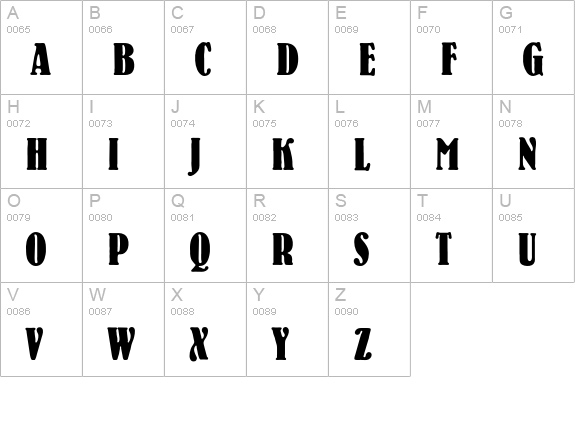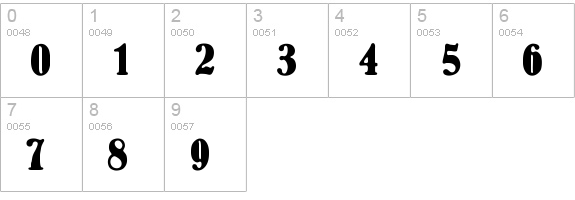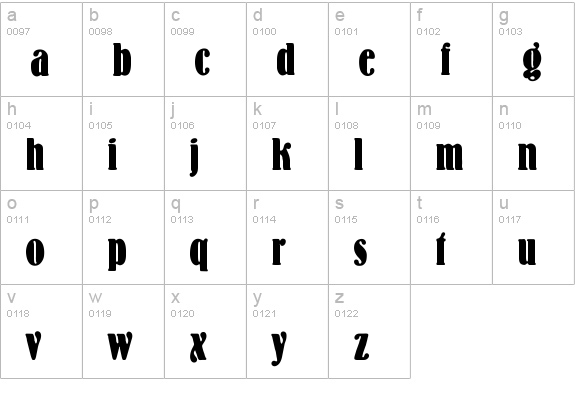
Laurin Font Details
Laurin font is a versatile and stylish typeface that is perfect for adding a touch of elegance to any design project. With its unique and eye-catching letterforms, Laurin font is sure to make a statement and leave a lasting impression. This font features a balanced combination of crisp lines and smooth curves, giving it a modern yet timeless appeal. It is suitable for various design purposes, including branding, logo design, editorial layouts, packaging, and more. One of the most attractive features of Laurin font is that it is available for free. Yes, you read that right! You can freely download this beautiful typeface at FontsMarket.com. This means that you can enhance your designs without any additional cost, making it a great choice for both personal and commercial projects. Laurin font offers a wide range of weights and styles, allowing you to experiment and create unique typographic compositions. Whether you need a bold statement or a delicate touch, this font has got you covered. The characters in Laurin font are meticulously crafted, ensuring excellent legibility even at smaller sizes. This makes it ideal for use in body text, as well as headlines and titles. With its timeless elegance and free availability, Laurin font is a must-have in every designer's toolkit. Download it today from FontsMarket.com and start adding a touch of sophistication to your projects.